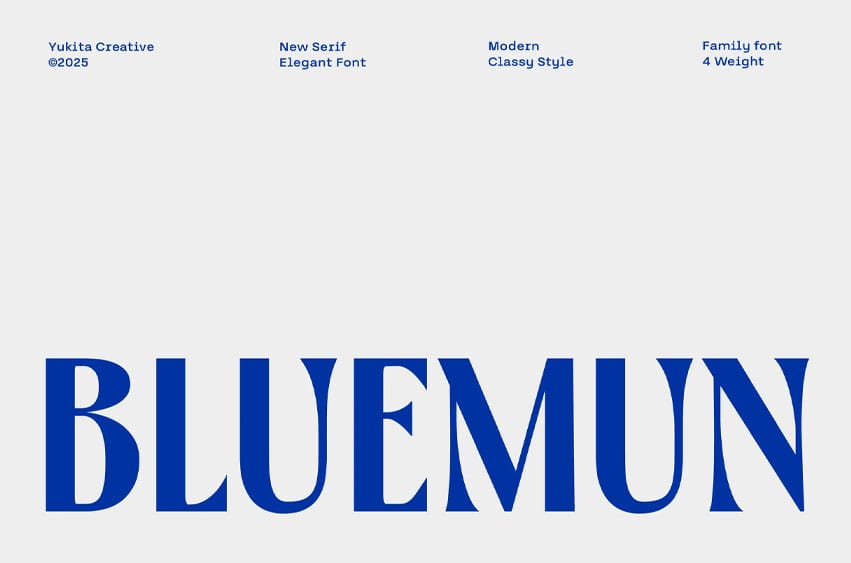
Bluemun Font is a simple and elegant serif font with a classy touch, perfect for modern and timeless design projects. It comes with 4 weights — Regular, Medium, SemiBold, and Bold — making it versatile for headlines, branding, invitations, and editorial use.
With clean lines and graceful curves, Bluemun Serif offers a refined look that enhances both digital and print layouts.
- 4 weights: Regular, Medium, SemiBold, and Bold
- Stylish and readable serif design
- Perfect for display text